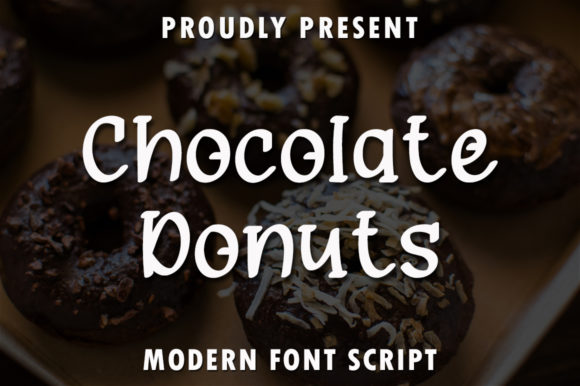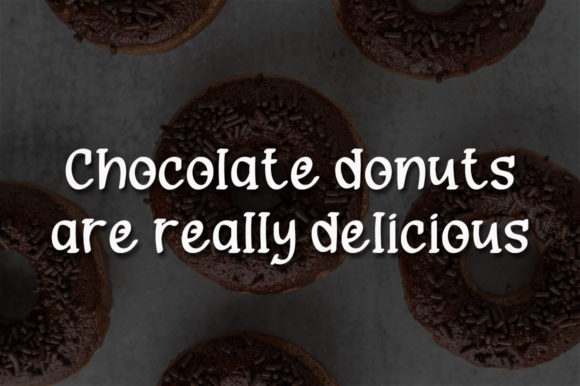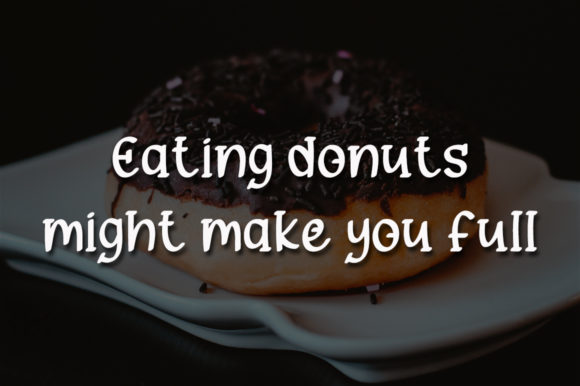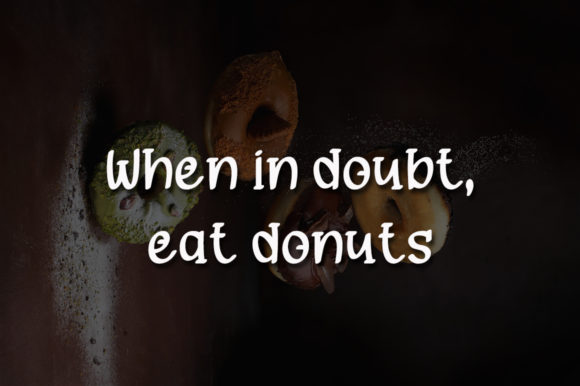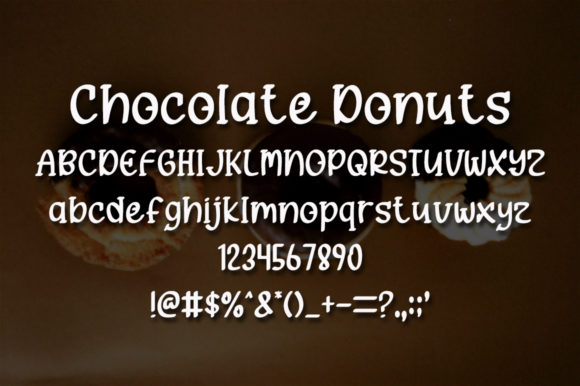
Chocolate Donuts Font
About Chocolate Donuts Font
Chocolate Donuts is a modern and cool display font. No matter the topic, this font will be an incredibly asset to your fonts’ library, as it has the potential to elevate any creation.